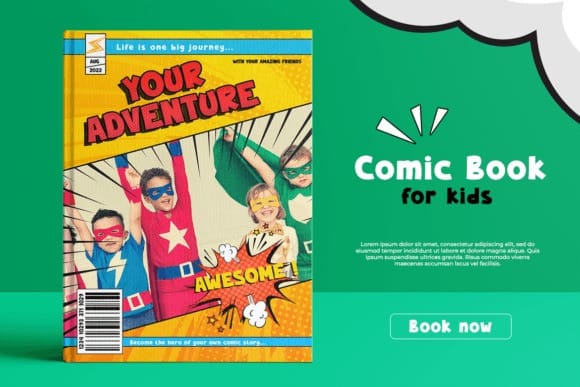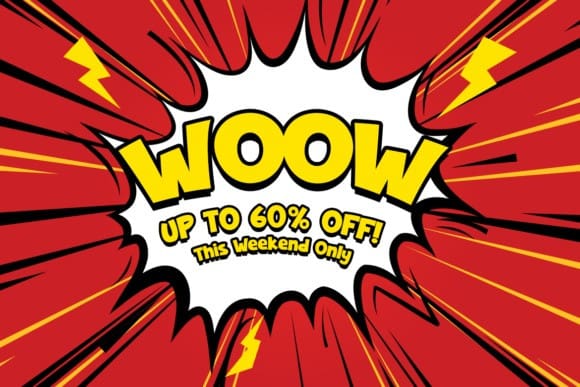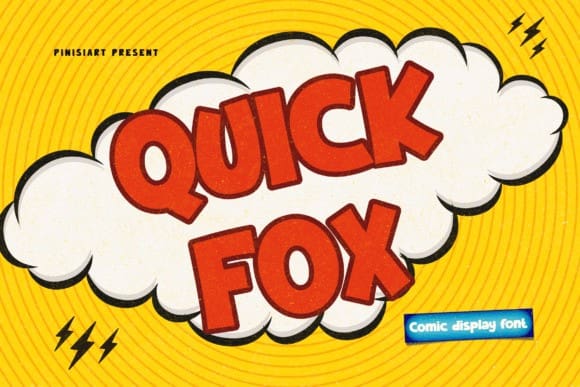
Quick Fox Font
Quick Fox Font – Comic Display Font. Suit perfect for comic style books market, online games, classic/ retro event posters, school supplies font, posters, movie titles, youtube covers, youtube thumbnails, social media page covers, and so on…